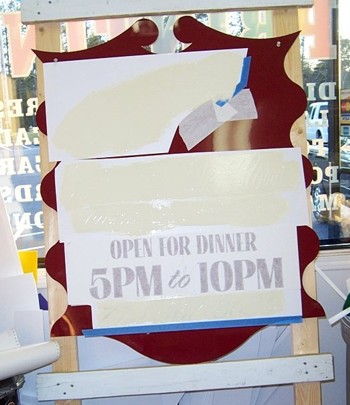
Normally, I
hesitate when a customer says they have a sign they want to bring in and have
done. It usually mean something that is pretty dilapidated, but this one was too
much of a challenge to pass up and pushed me to try some new things...
The customer requested that it all be done in paint and have a trout on it, and
after some thought, this was the game plan...
Here's the substrate...
A 4X3 piece of stainless steel that had been plasma cut to match their old sign.
The first step was to turn it to a maroon color to match the buildings new paint
and awnings, so off it went to the guys at the body shop. It was sanded with 180
and then 320 grit first, then shot with self etching primer. PPG base coat
paints were then applied and double clear coated on both sides.
Back at the shop, vinyl paint masks were cut for the lettering and applied. Once
scuffed, the letters were foam brushed on with One Shot paints and the the
masked removed. The cream color was mixed to match the building it would hang
outside of.
Outlines, drop shadows and pinstripes were then hand painted...
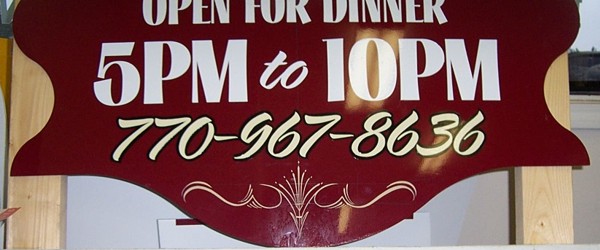
And now the fun part...
Using Everwood foam, I hand carved the fish that were going to be applied to the
2 sided sign, sprayed them with sandable primer, sanded smooth by hand and
coated with Metalcast base...
The fish
were then airbrushed with One Shot Pearlescent colors and sprayed with gloss UV
clear. Once they were finished, another mask was applied to the sign in the fish
shape, scuffed and the trout were Gorilla Glued into position. After the glue
set set, the excess glue was trimmed along the edges with a snap blade and
pulling up the mask left a clean seam that was sealed with brushable clear.
black buttons with crystal centers for the eyes. A littel carving and some more
GG set them in place, the water was painted on and a few more pinstripes on the
top finished it up nicely...
One VERY happy customer and a real test of combining different materials and
paints for the end result.